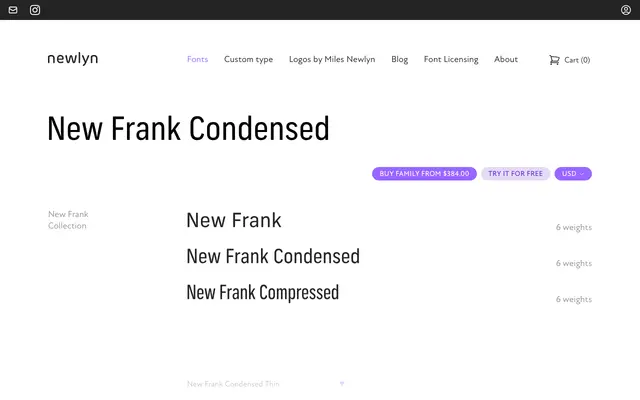
New Frank Condensed
The condensed width of Newlyn's New Frank family, offering six weights with matching italics for space-efficient editorial and display applications.
New Frank Condensed sits in the middle of a three-width system alongside the standard and compressed cuts, covering Thin through ExtraBold in upright and italic. The proportions suit headline setting and space-constrained layouts without sacrificing legibility at text sizes. Twelve styles in total make it a flexible tool for editorial, identity and screen work.
A condensed grotesque sans-serif, part of the New Frank collection alongside standard and compressed widths, following the proportions and conventions of 20th-century European grotesque typefaces.